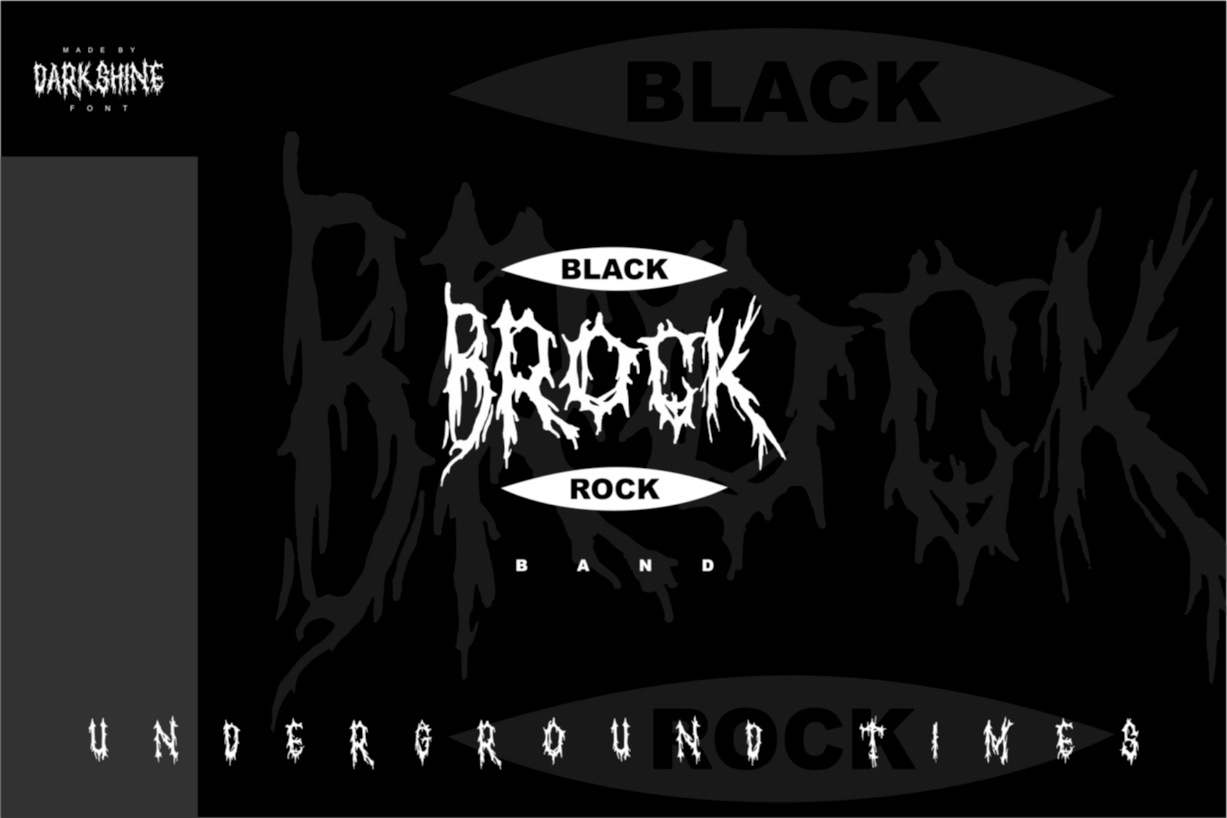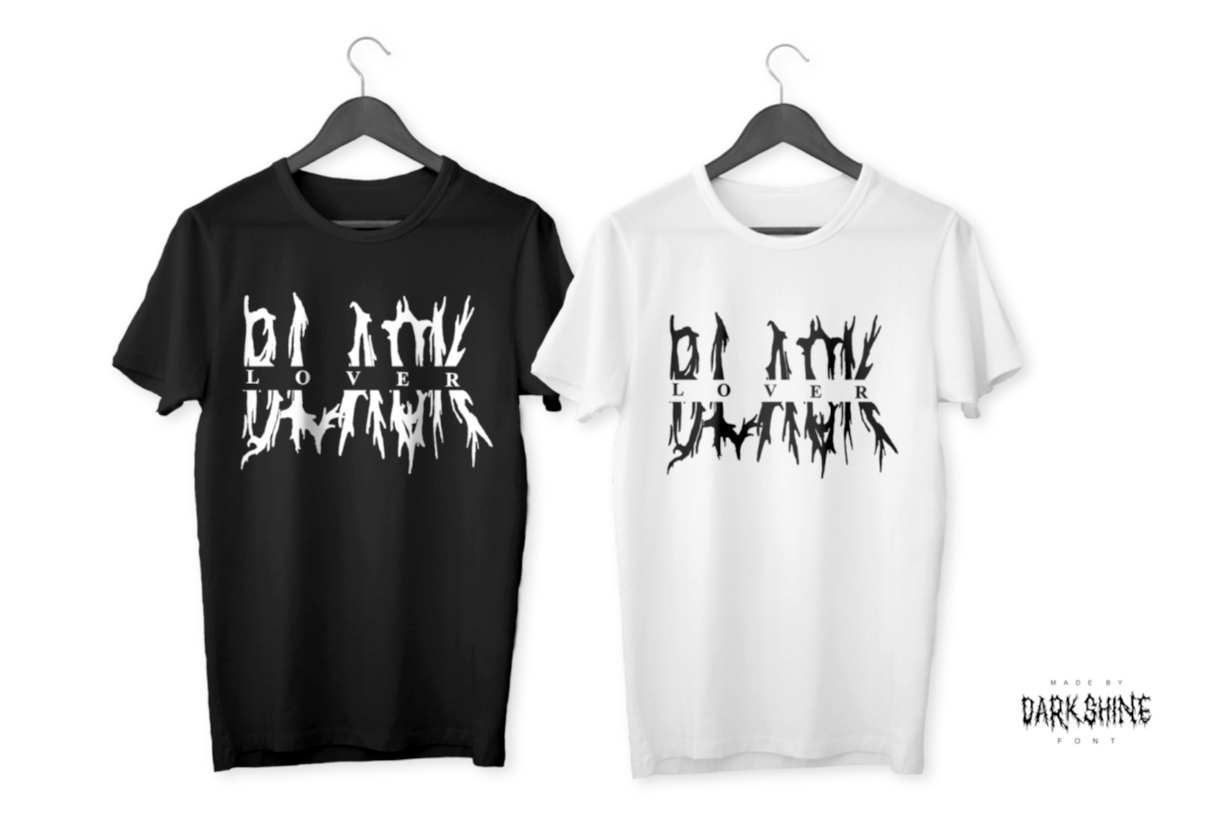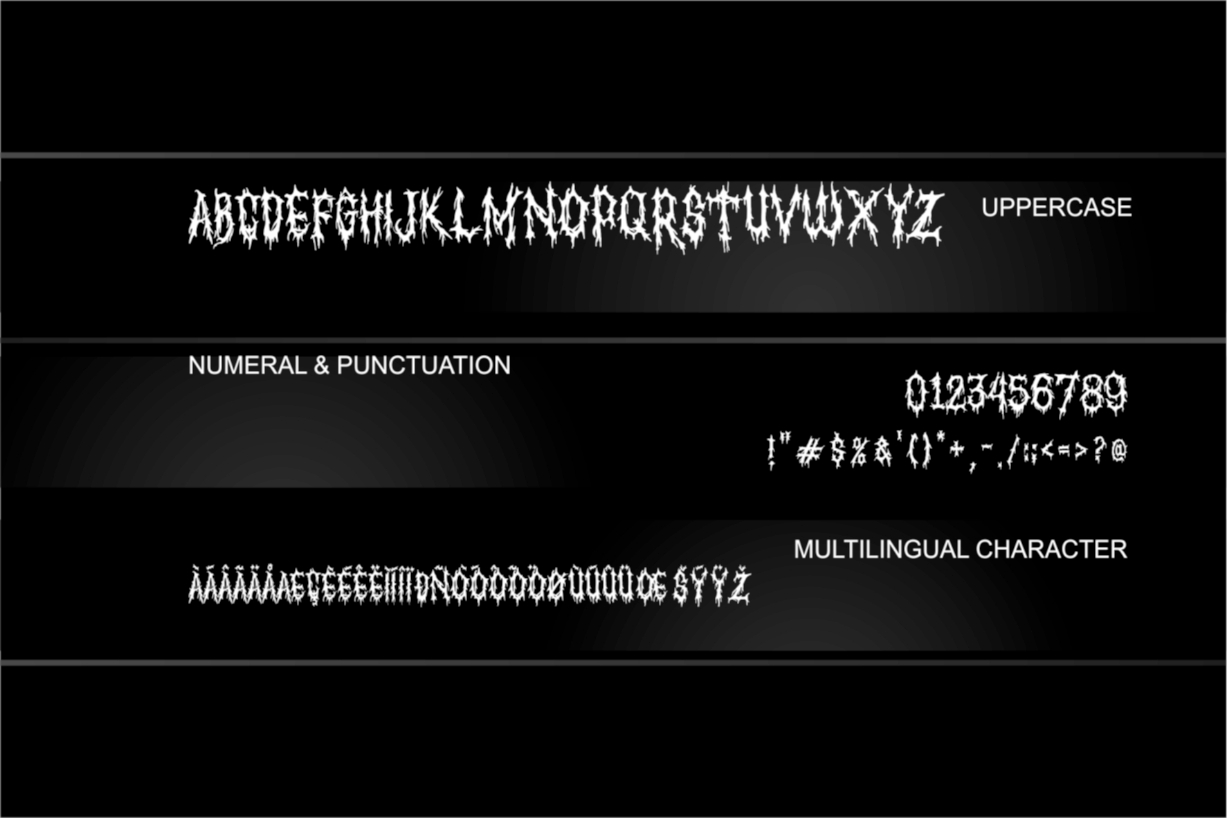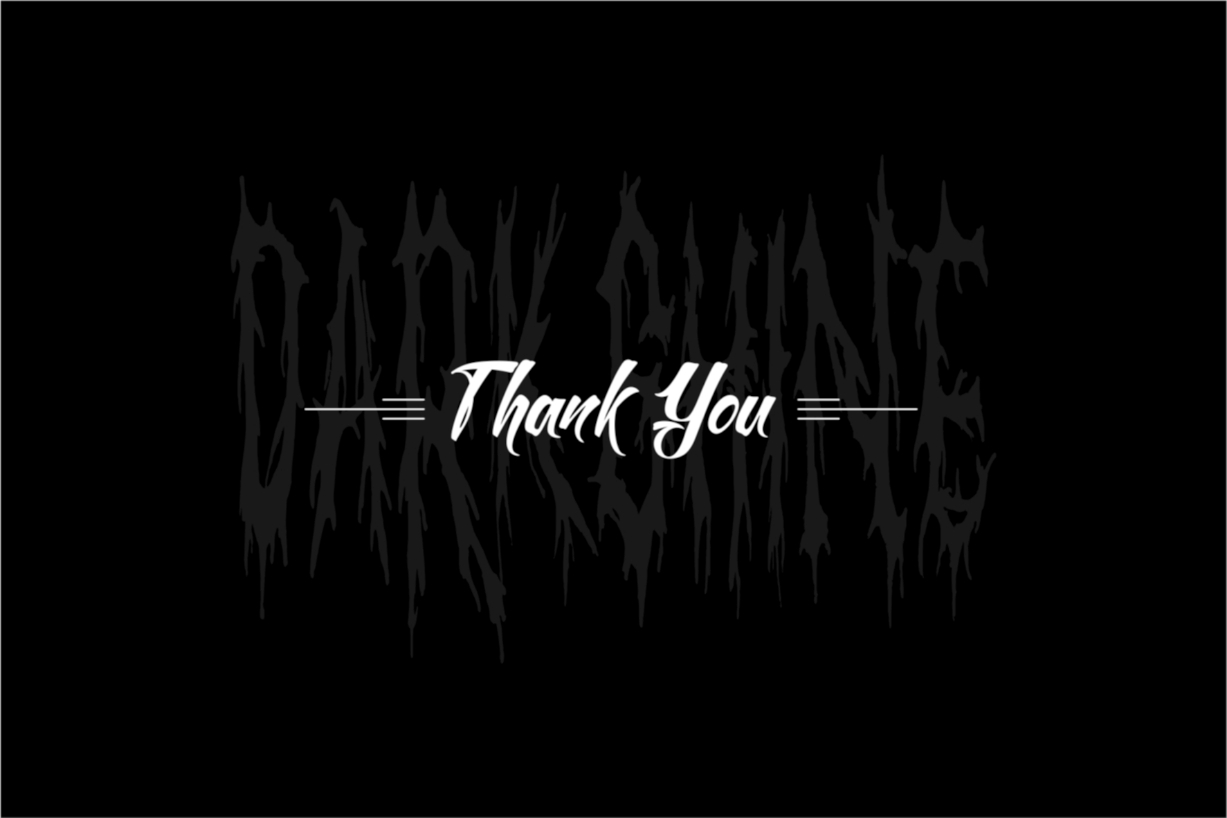
Darkshine Font
About Darkshine Font
Darkshine is a horror-themed blackletter typeface. It is perfect for adding a spooky touch to your design project.